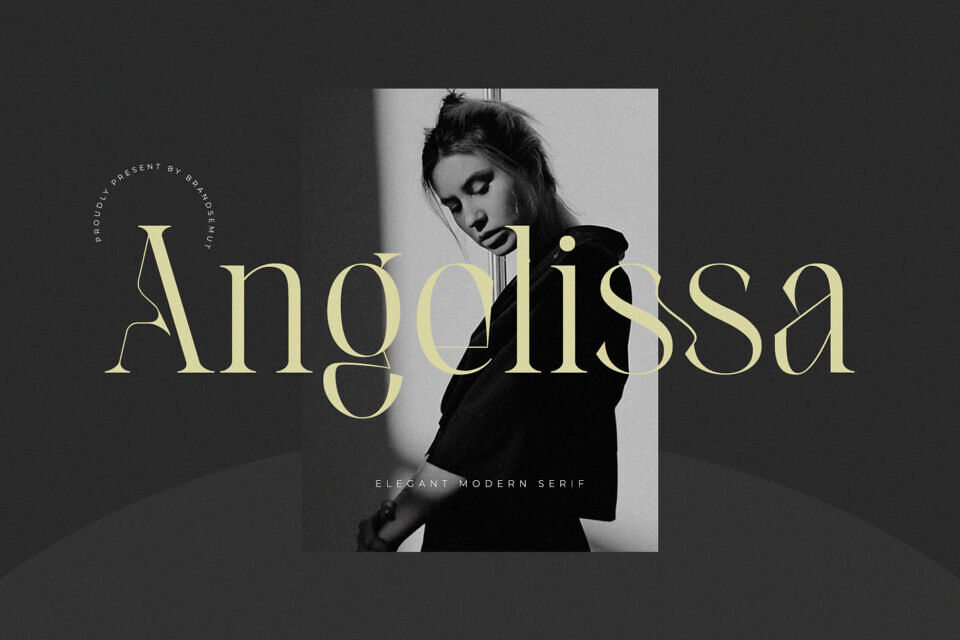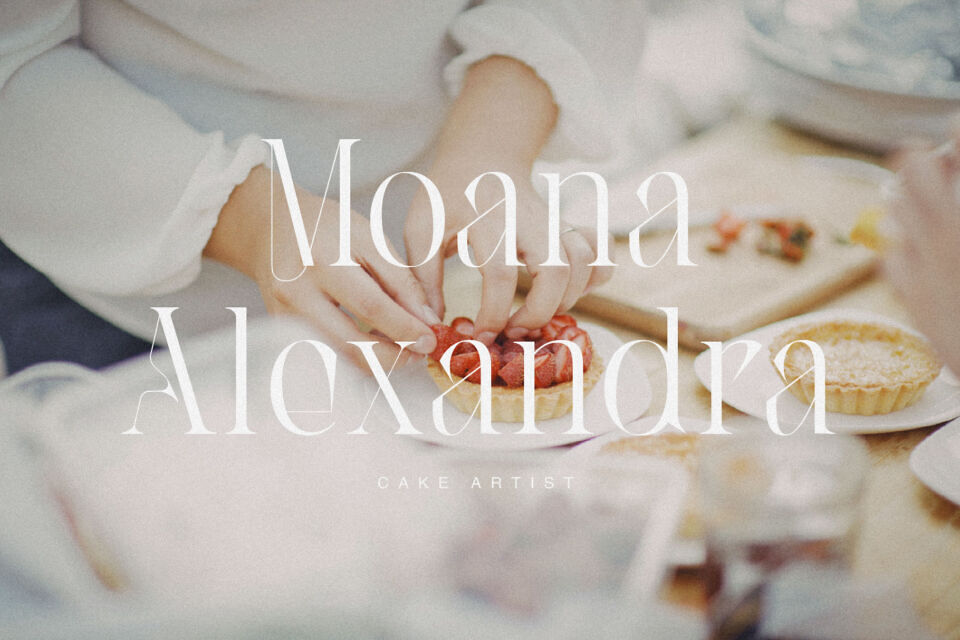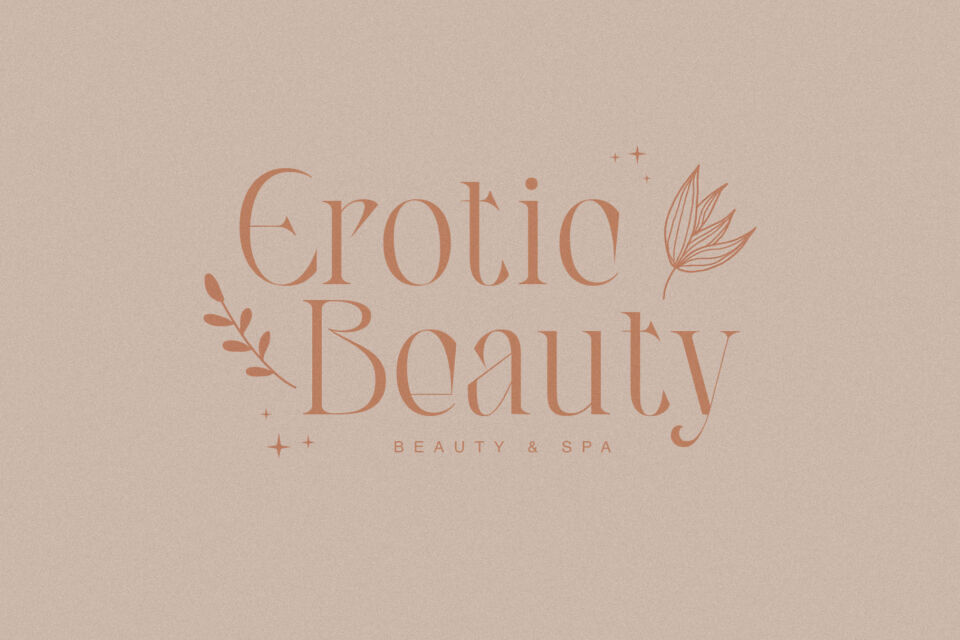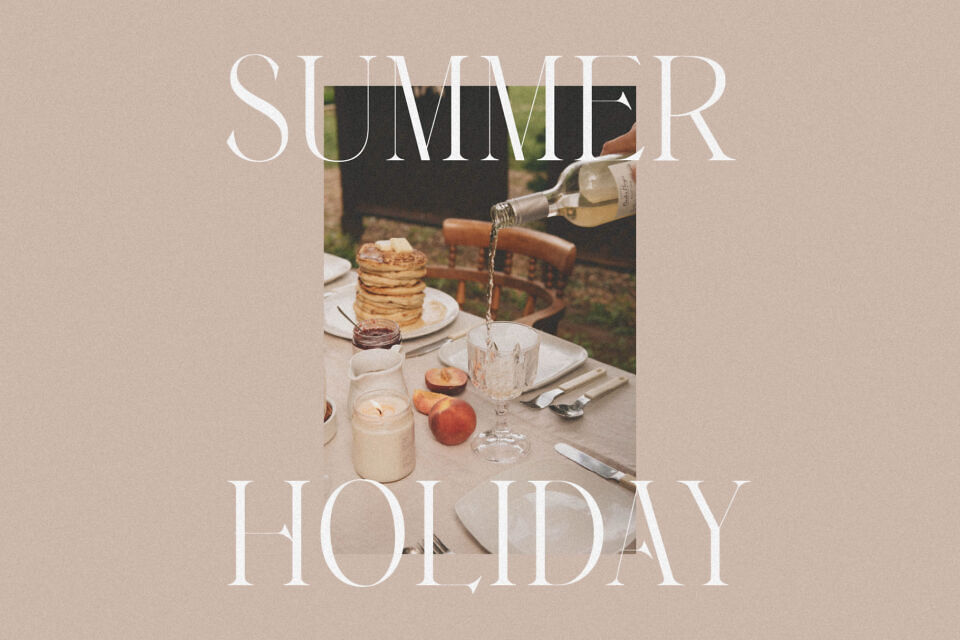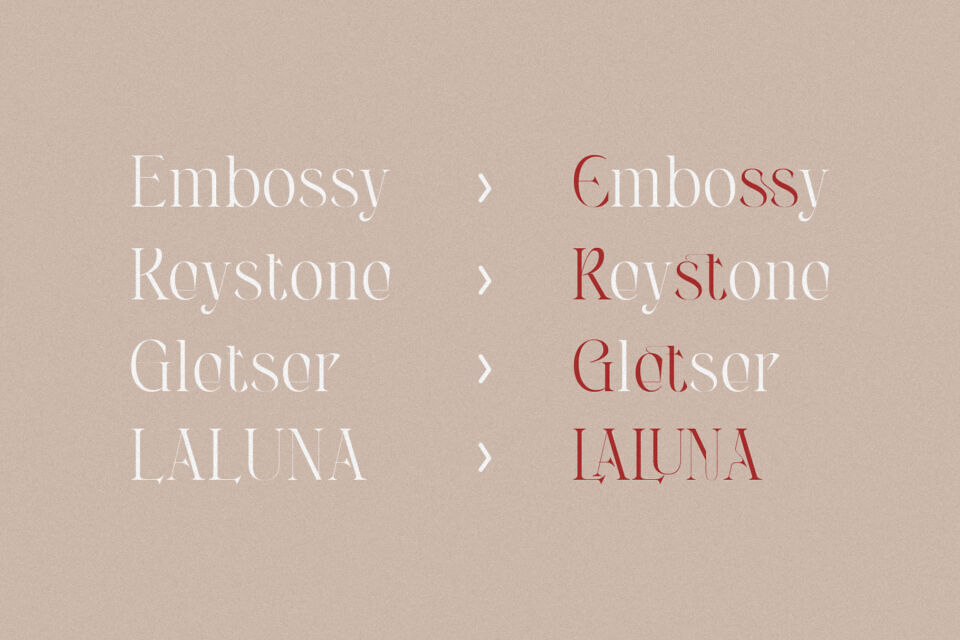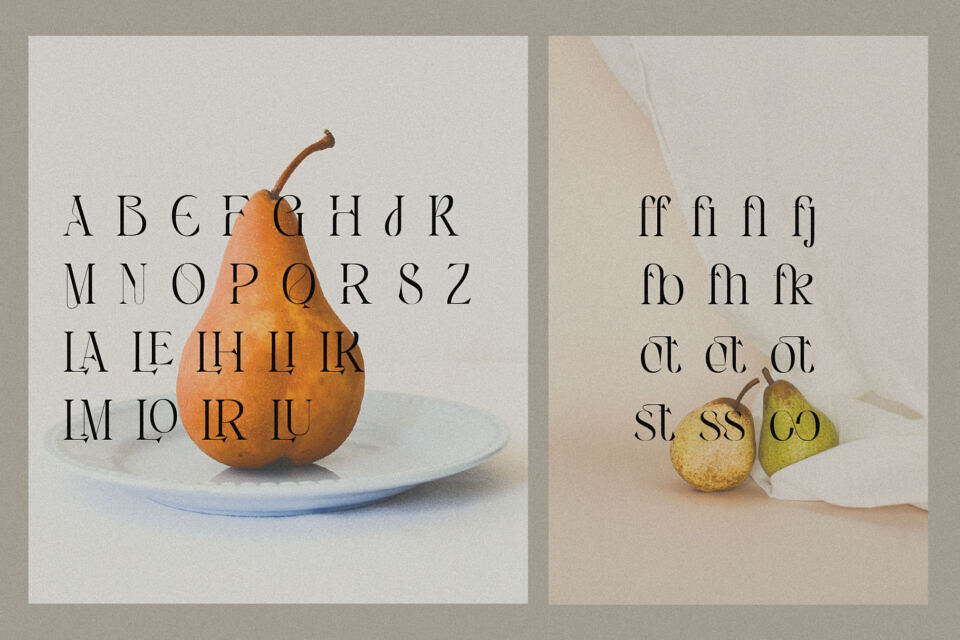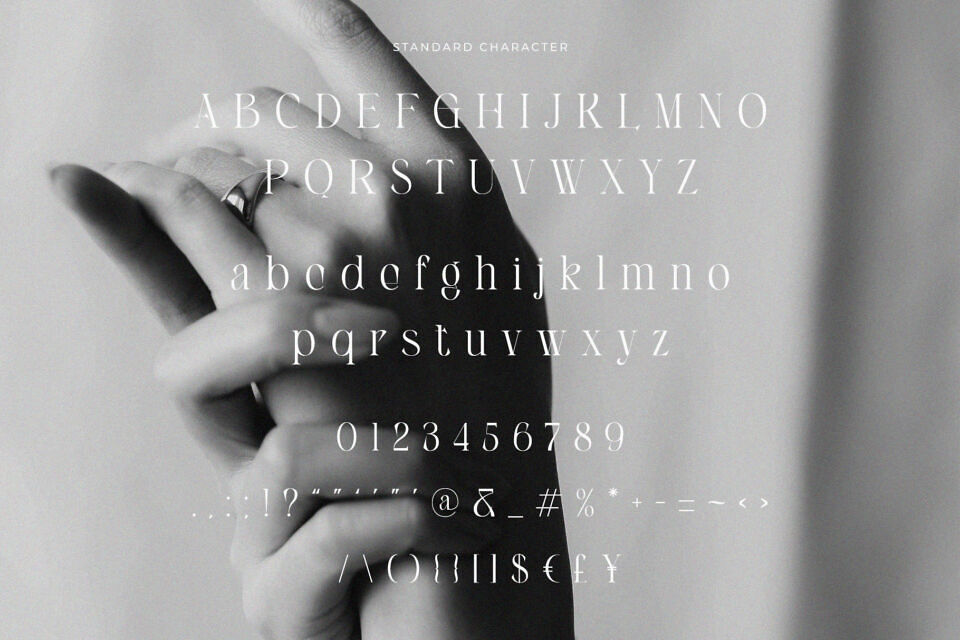
Angelissa Font
Introducing our new “Angelissa”, Modern ligature typeface with Unique, Classy and Stylish. Is perfect for branding, logos, invitation, master heads, and more.